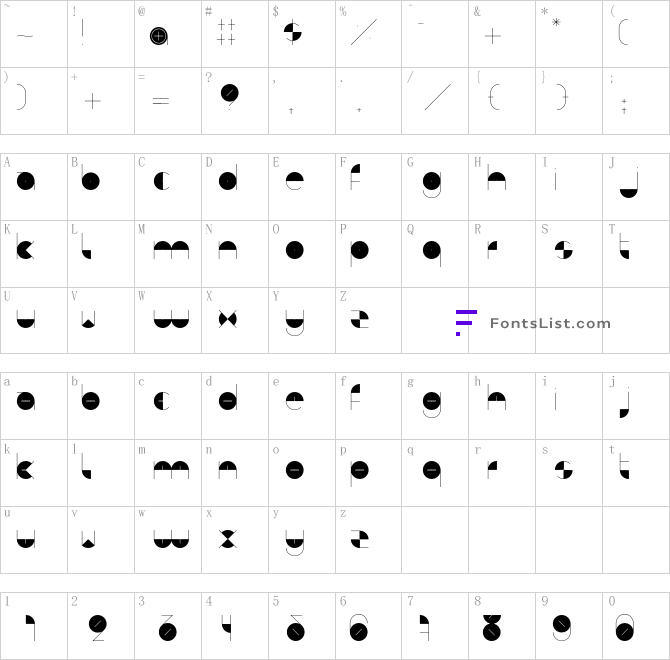
- Font Name:BD Algebra
BDAlgebra-Minus.otf is a very beautiful artistic font, BDAlgebra-Minus.otf is widely used in the design and printing of various books and pictures,BDAlgebra-Minus.otf has a strong visual impact,BDAlgebra-Minus.otf is a commonly used font in newspapers, magazines and books, and is used in posters, e-commerce Poster design, store design, logo design, font design and other fields.BDAlgebra-Minus.